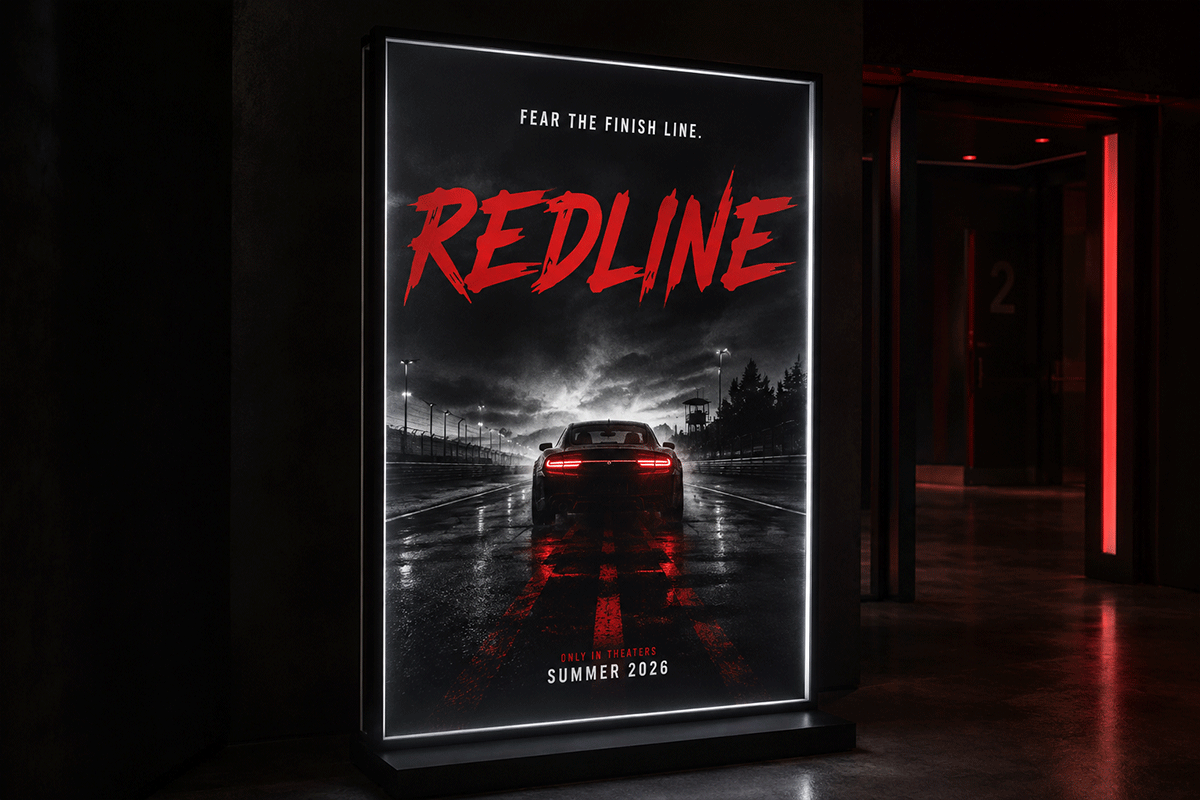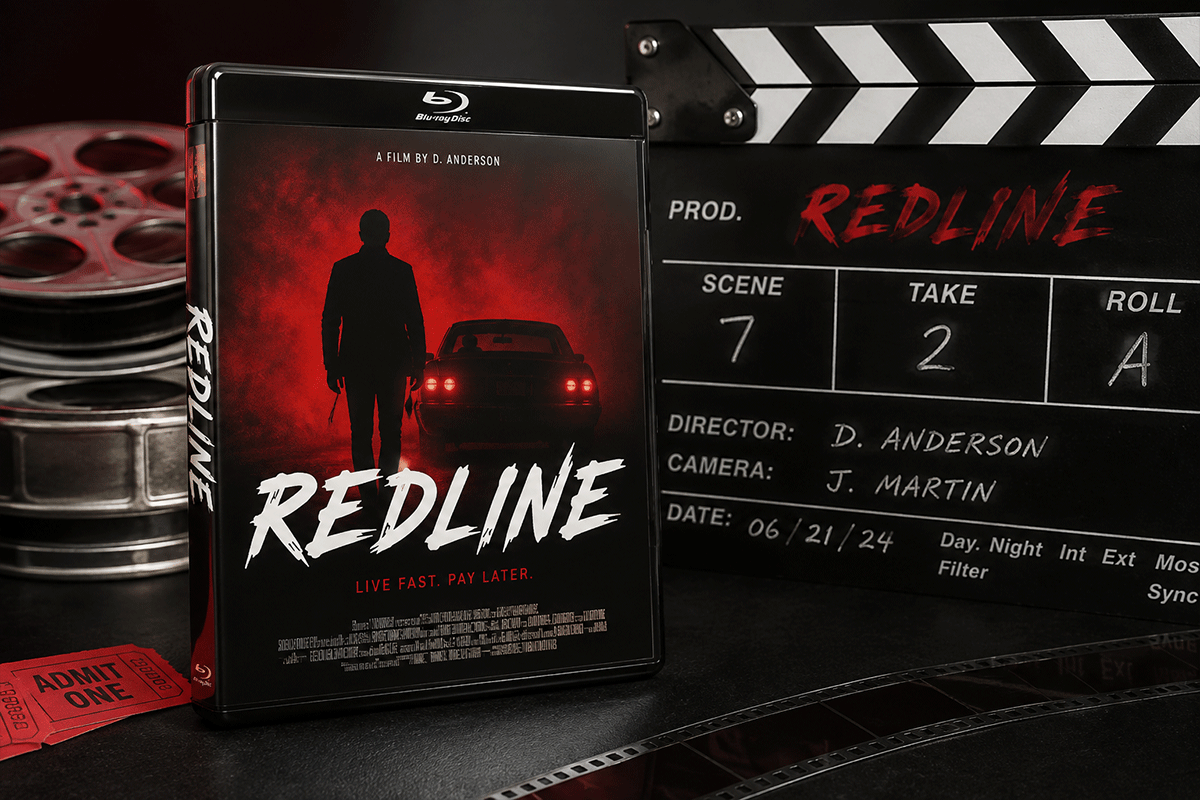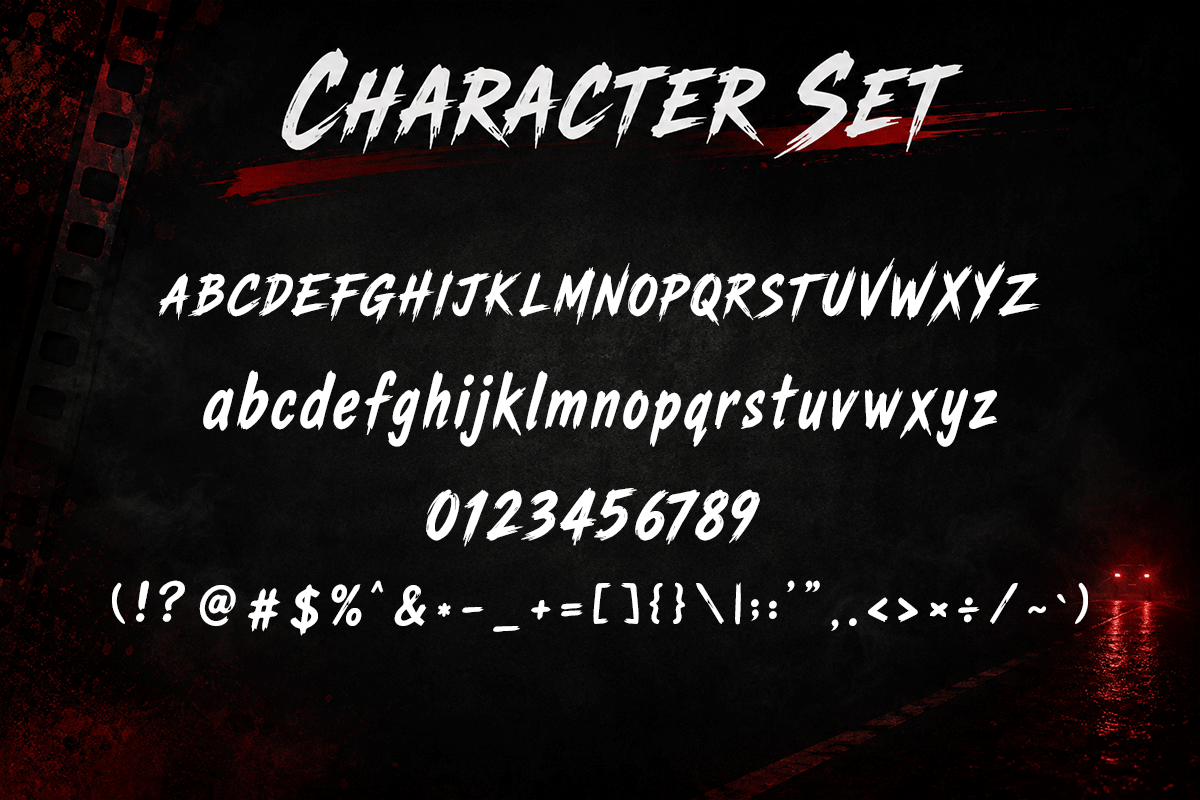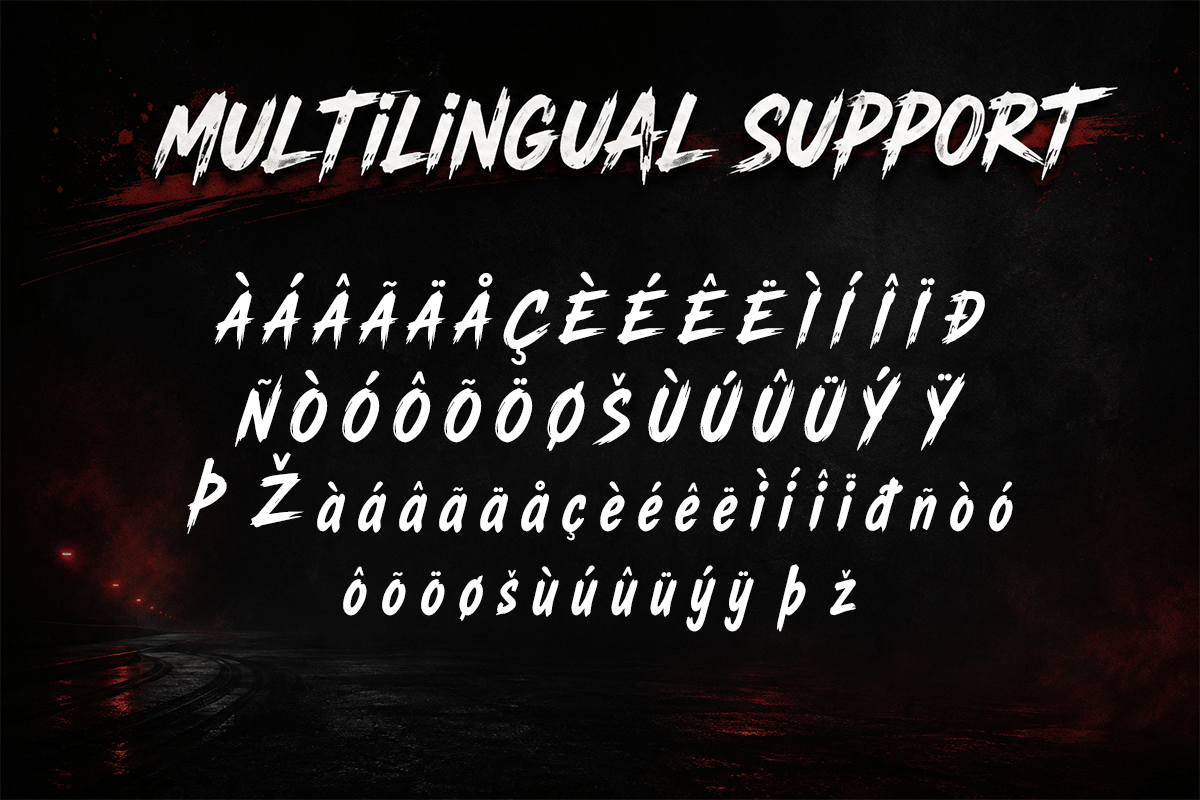
Redline A Modern Display Brush Font is a powerful brush display typeface built with sharp edges, rough textures, and energetic hand-painted strokes. Its aggressive construction creates a dramatic visual presence, making every word feel intense, dangerous, and full of movement.
Inspired by action movies, thriller posters, underground graphics, street culture, racing aesthetics, and dark cinematic titles, Redline A Modern Display Brush Font is perfect for movie posters, game titles, album covers, sports graphics, automotive branding, streetwear, T-shirts, event posters, YouTube thumbnails, social media campaigns, merchandise, and bold advertising.
The distressed details and irregular brush shapes give the font an authentic handcrafted character, while its strong proportions make it especially effective for large headlines and attention-grabbing typography.
Redline A Modern Display Brush Font is an excellent choice for designers looking for a typeface that feels aggressive, raw, fast, rebellious, cinematic, and powerful.